3D printable Lego typeface
I have been fan of Lego and pixel art since my childwood so I decided to create a Lego wall in my DigitasLBi Labs office. Then we started making pixel art using small bricks. I set this wall as an open canvas where everybody could create, I started with Mario Bross and then Bomberman appear with bob the sponge, space invaders, etc. And yes I also made a Lego Qr-Code :-)… Later people used the wall to display messages or font based logo. Design text message using Lego is quite chanlenging and you often end up with a deceptive result. That’s where the idea of creating some “Lego” brick fontface came.
THE FIRST POC
I started designing “Lego” chars by hand using 123Design but that rapidly became a nigthmare because a Lego brick is quite complexe. I also wanted to be abble to generate all font char at once. But a least I had a first working POC:
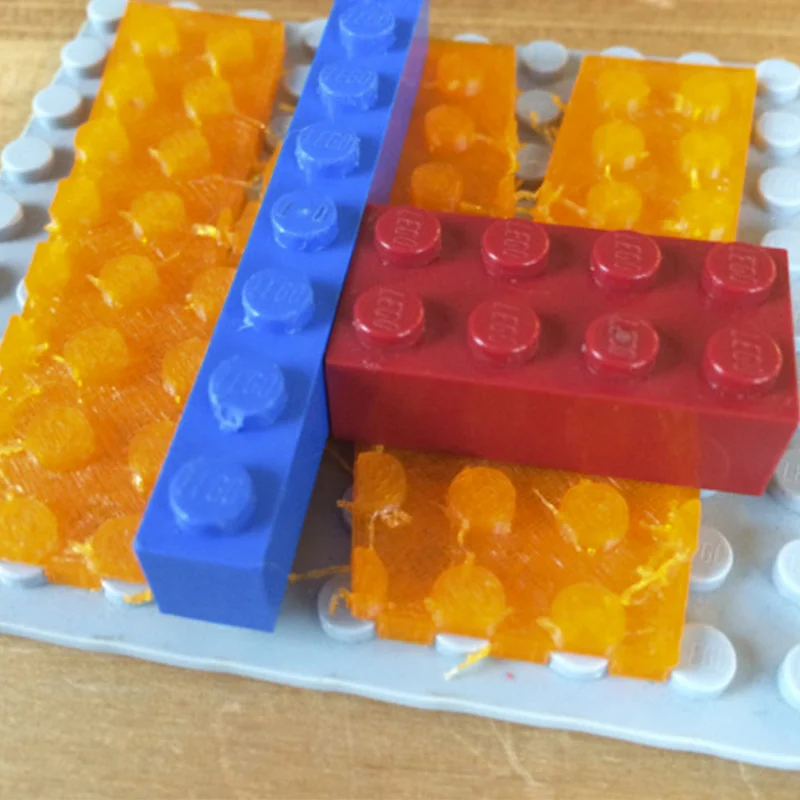
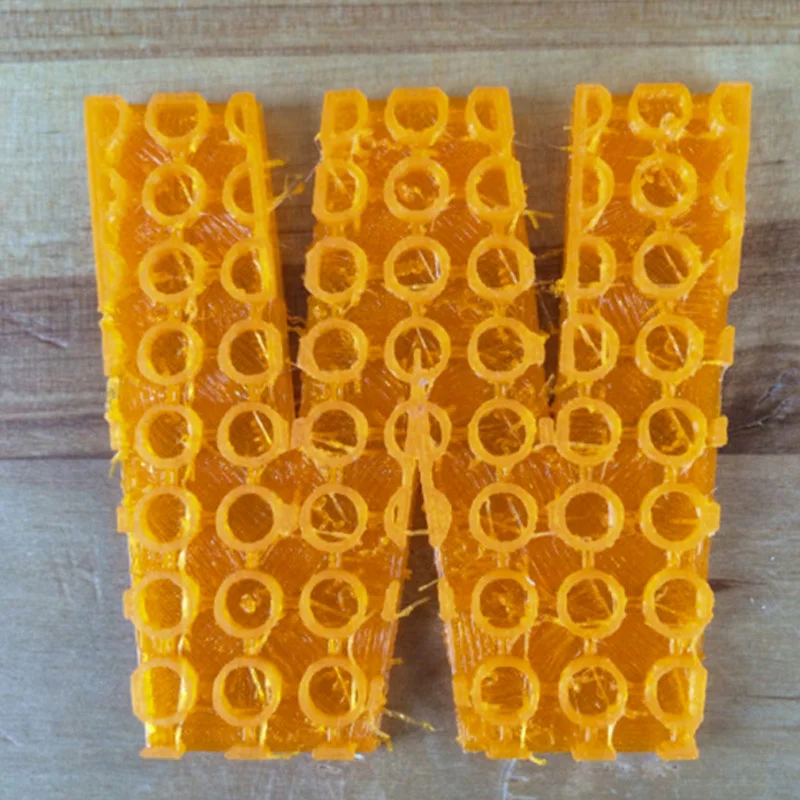
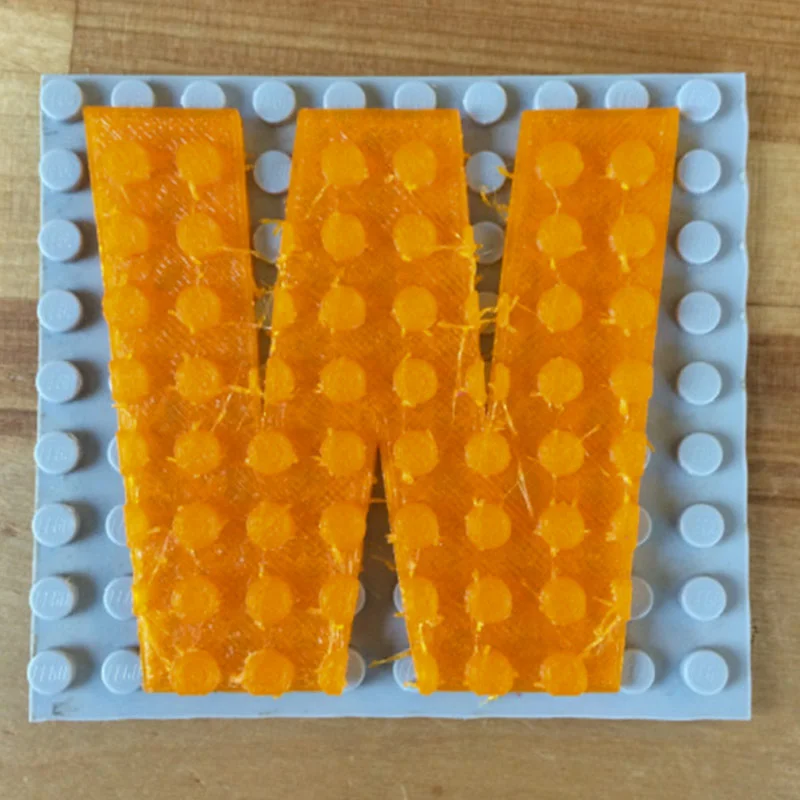
SEEKING FOR THE RIGHT TOOL
After exploring different 3D software and CAD tools I finally discovered an opensource 3D CAD software named OpenScad. That was exactly what I was looking for, it’s a programing language capable of generating 3D model using simple 3D shape and boolean operation. You can easely create whatever you want. You can also use a lot of differents library developped by the community. The amazing part of this tools is his ability to generate 3D model dynamicaly. For my needs I have create a script capable of generating all the parts of a brick. After that it looks like this to generate A,B and C chars:
renderBrick() Letter("C");That’s usefull but you still need some manual work to generate the full set of chars of the font. An other great part of OpenScad is his CLI ability. Using Bash script you can call your OpenScad script with a set of parameters in my case I was abble to pass a list of chars and a font ID to generate all chars from a font.
openscad -o output/${3}-${fontArray[${3}]}/CHAR/${array[i]}.stl -D debug_mode=false -D fontID=${3} -D 'letter="'${array[i]}'"' bricks_gen.scadI now have a fully configurable bash script capable of generating a full set of chars
USING EXISTING FONT-FACE
Using any existing font is a great source of creativity, thanks to my OpenScad script I was abble to generate any font but I wanted to generate bricks that fit prefectly with Lego sizes and constraints. Chars width & heigth need to be proportional to the lego knobs spacing. That’s where I starded design two font face “Brick font” and “Brickolage”.
Long Shot
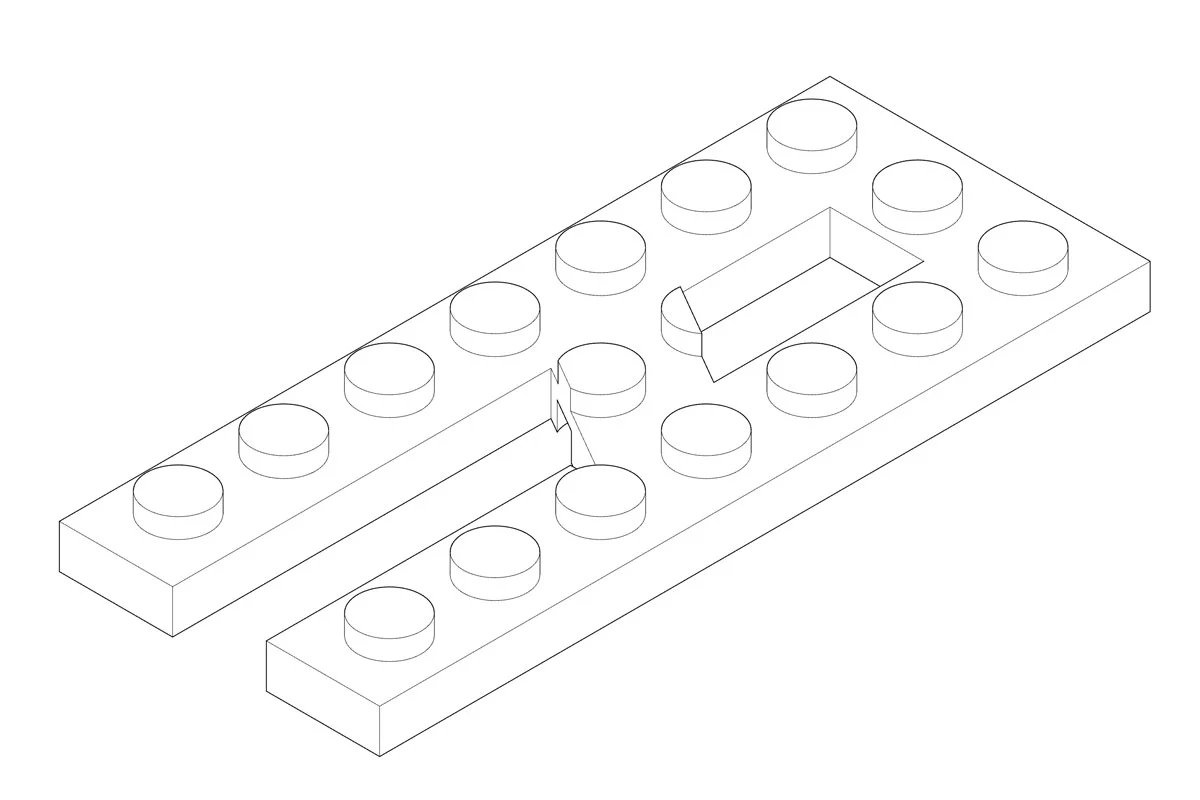
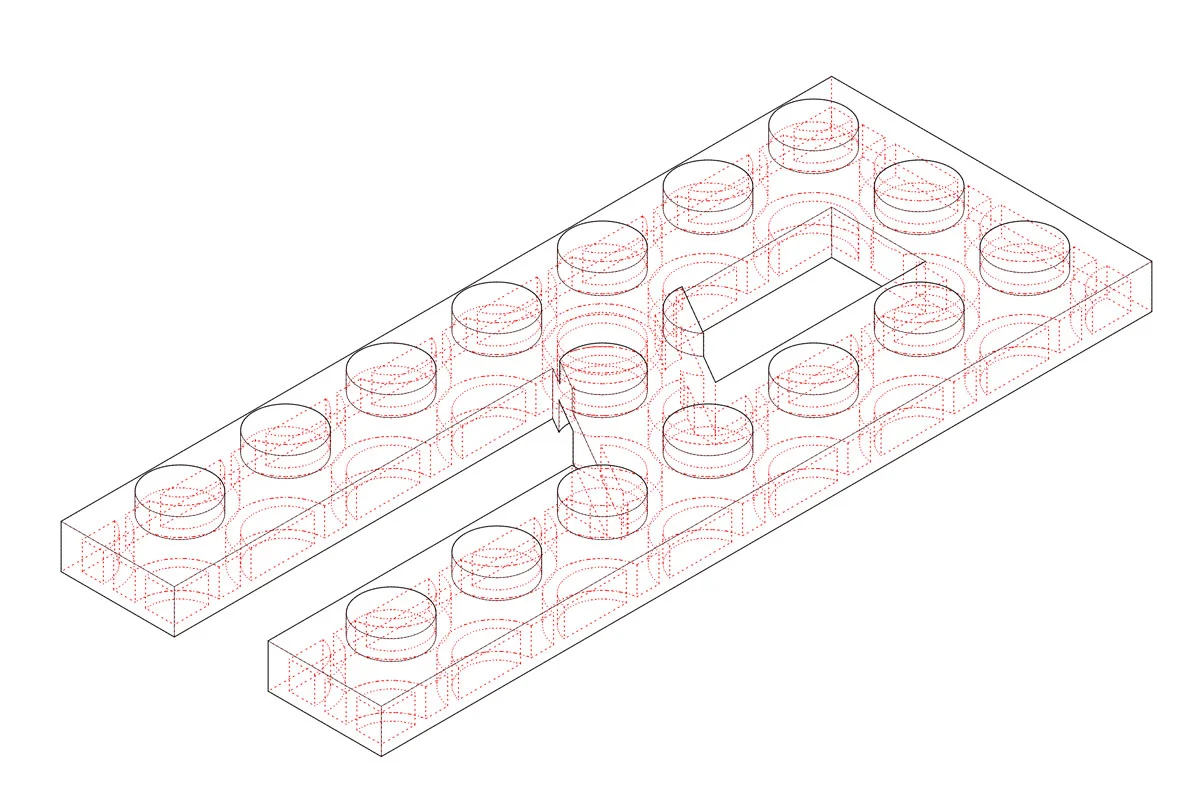
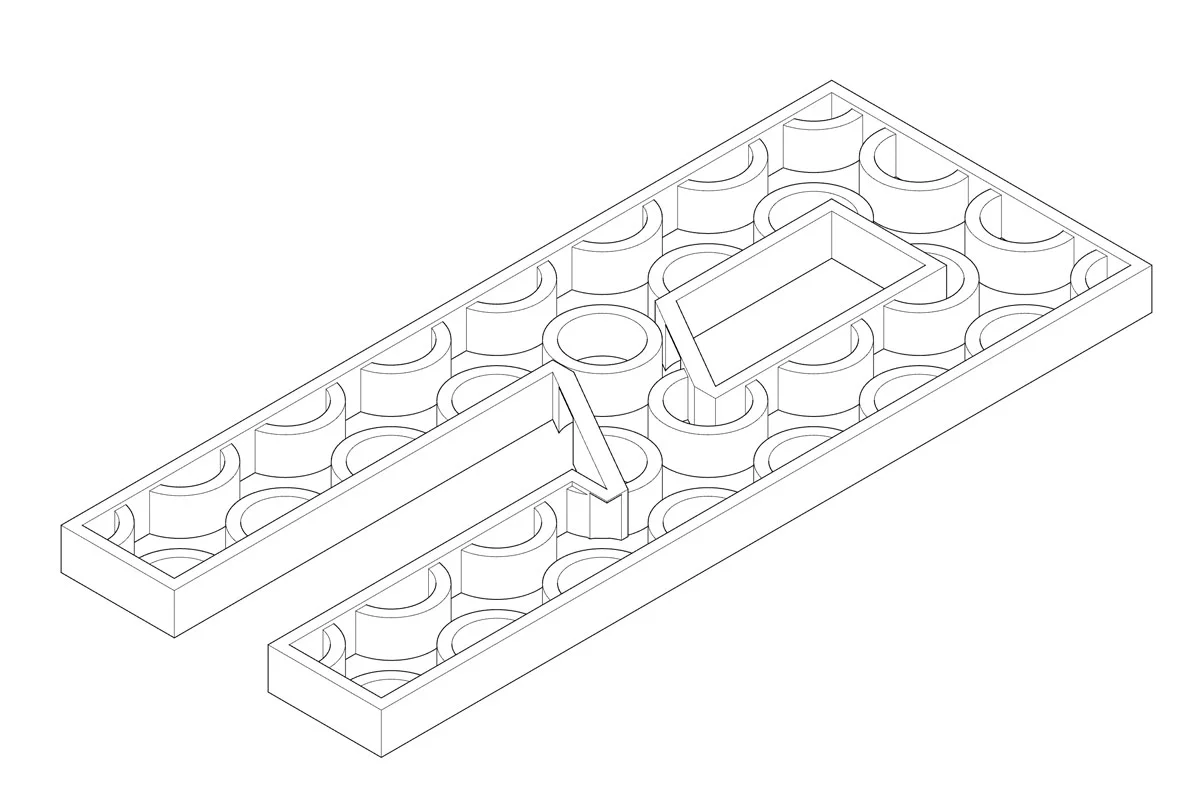
Phosphate
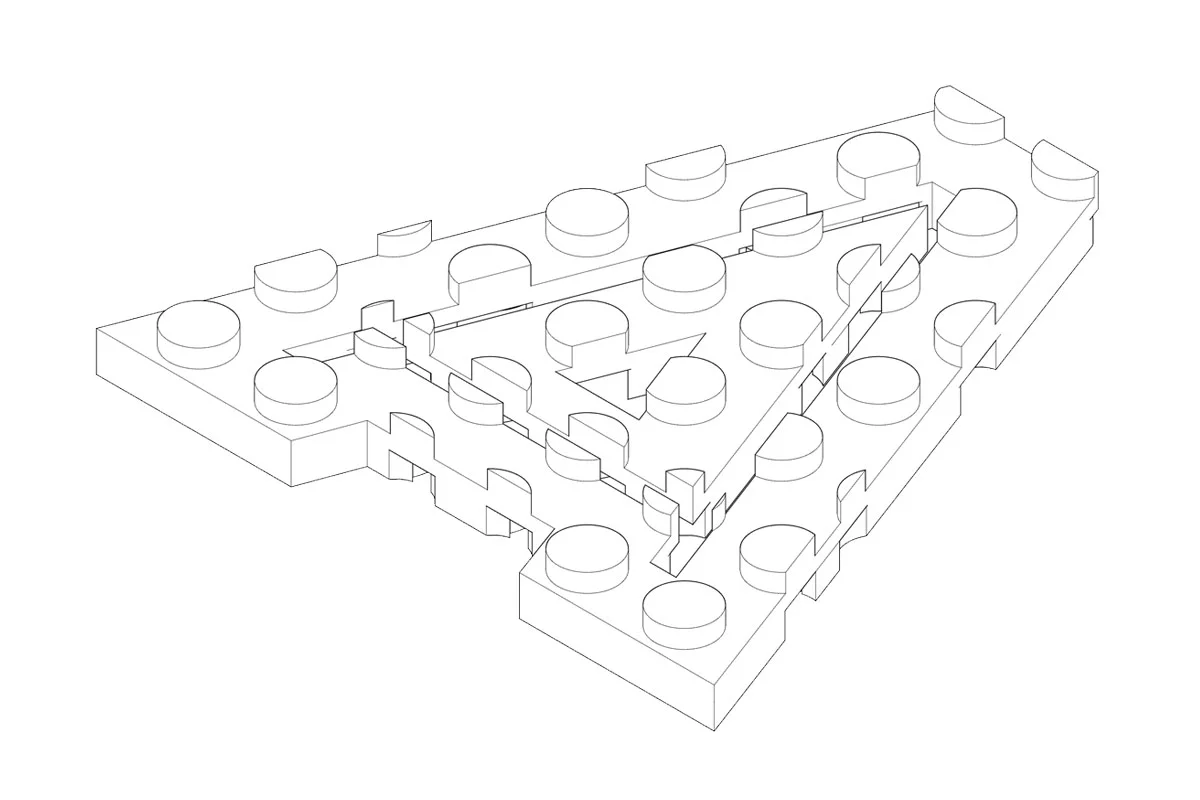
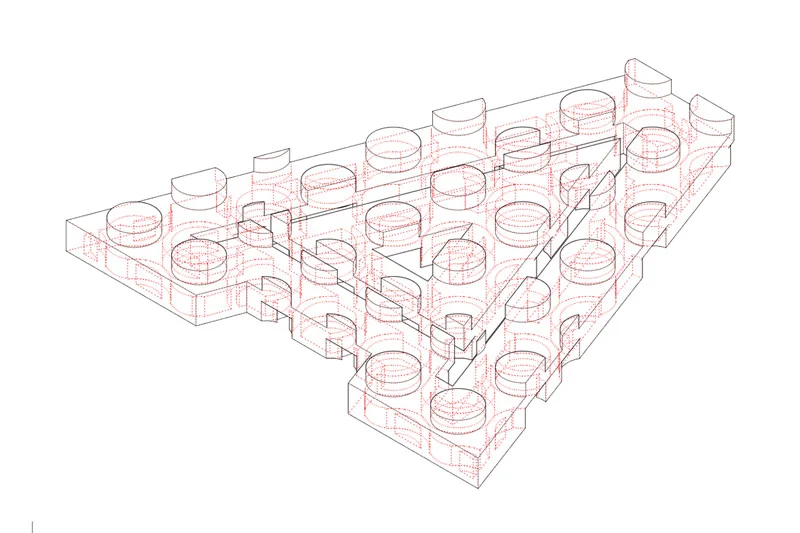
Birds of paradise
3X5 FONT NAMED BRICKFONT
4X8 FONT BRICKOLAGE
3D PRINTING CHALENGES
Once designed and generated chars have to be printed. This pieces seamms easy to printed at the first tougth but I faced a lot of issues with bridging and overall quality. After a lot of different seettings and software I finaly been abble to print acceptable quality using Simplify 3D.
CREATIONS
This technic of generating brick from font inspired me to create some motivationnal posters, doors sign for my kids and message for the office.
La vie est belle
Non smoking area
All you need is...
Kids door sign
All you need is love
Stay young and play Lego derivated from my Stay Young poster.